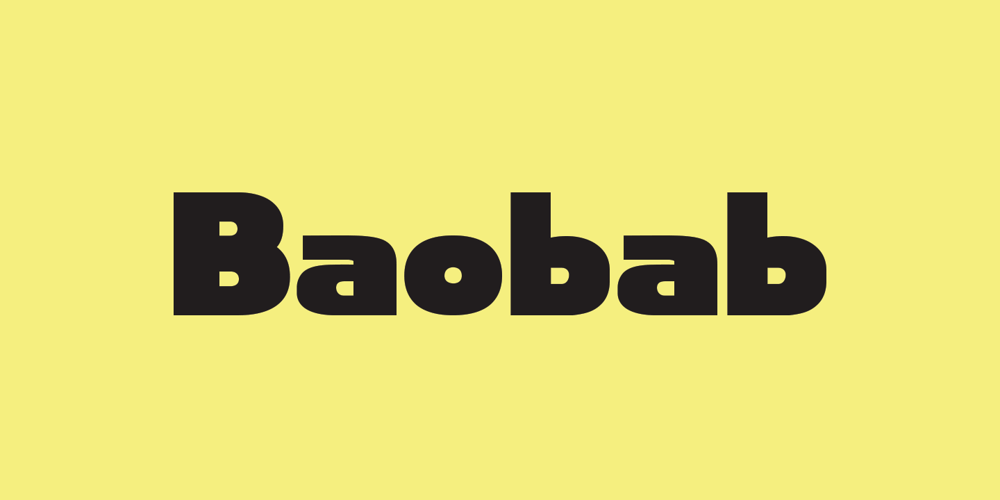
Baobab
Baobab font
Baobab Font Family was designed by Daniel Bak and published by Artcity. Baobab contains 2 styles and family package options. Super heavy font inspired by the wide trunk of African trees known as baobabs, available in two versatile styles, with sharp, and rounded corners.